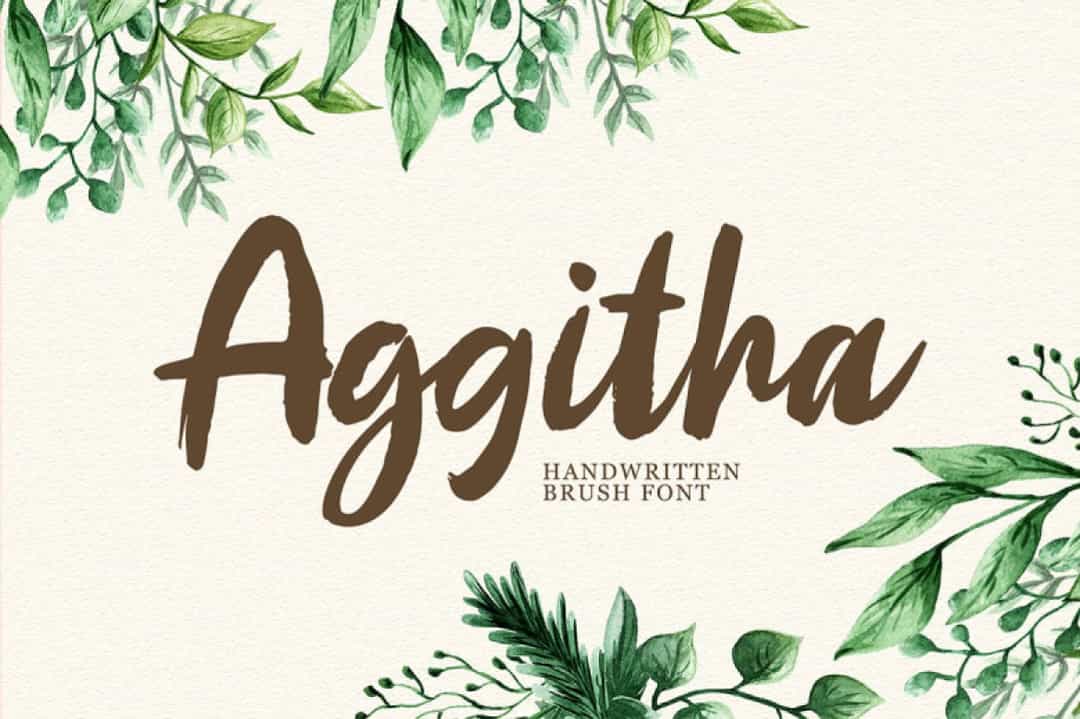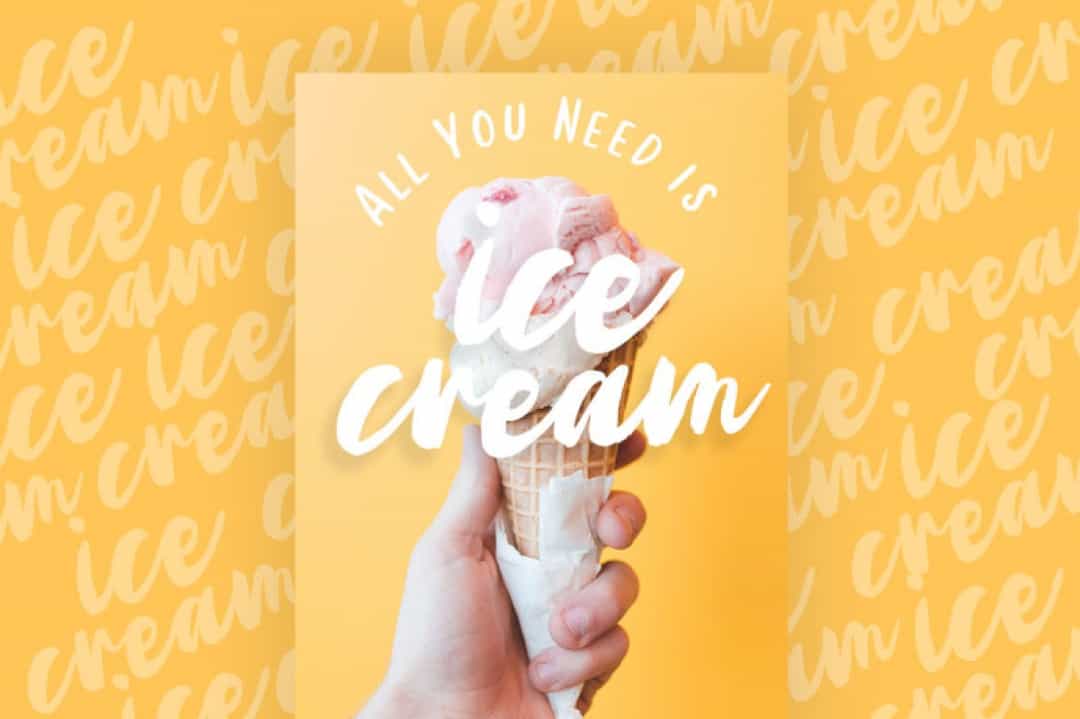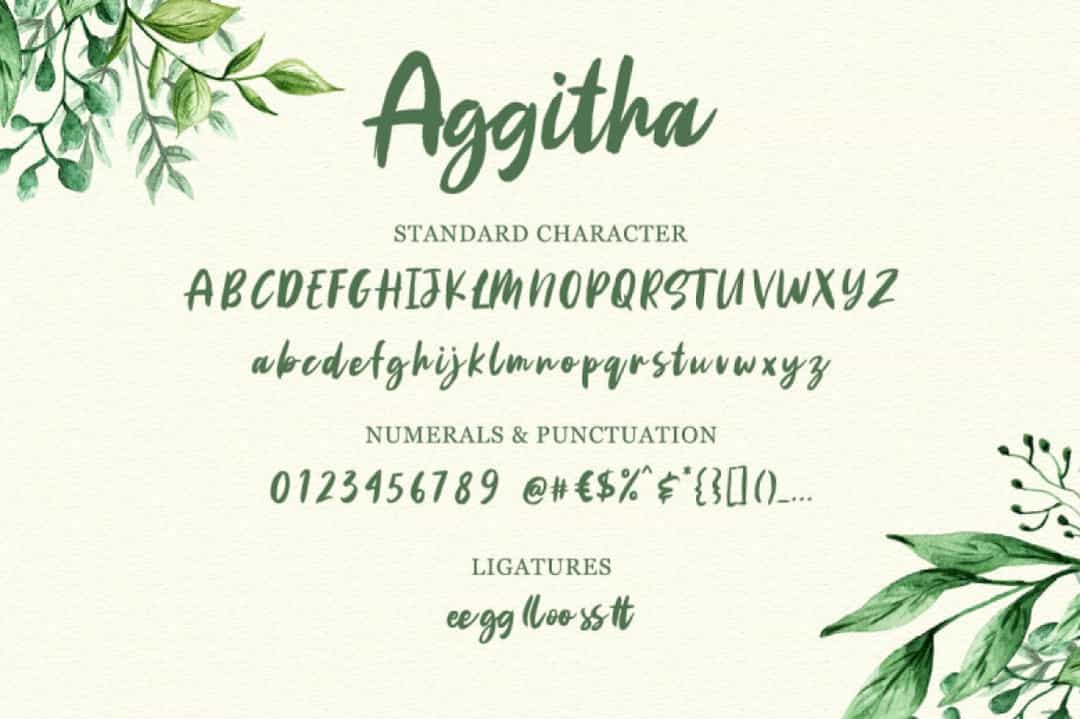
Introducing Aggitha Brush Font. Aggitha Handwritten Brush Font, script with natural dry brush strokes make it beautiful, and the stroke of hand quickly.